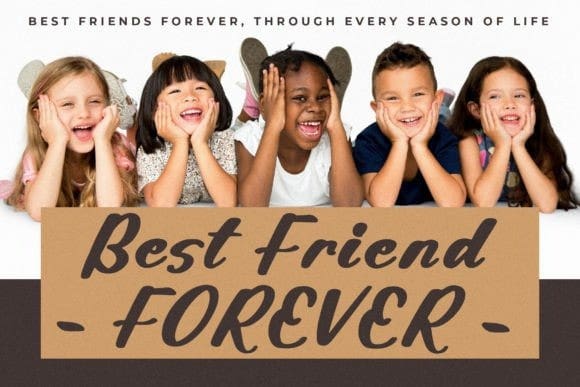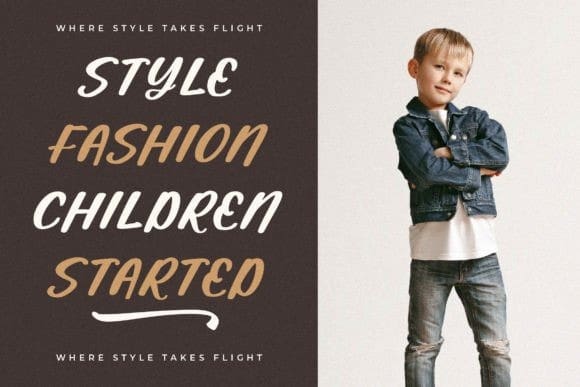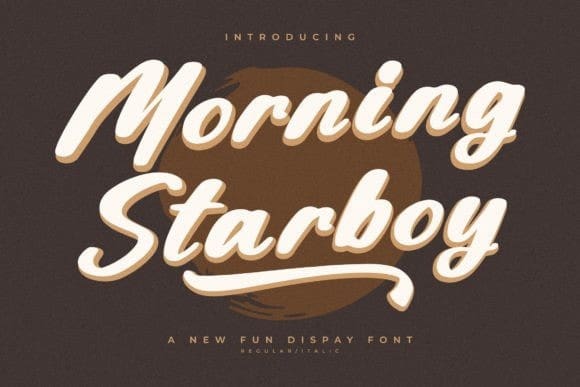
Morning Starboy Font
Morning Starboy Font is an exquisite handwritten font, masterfully designed to become a true favorite. It maintains its classy calligraphic influences while feeling contemporary and fresh. Fall in love with it and bring your projects to the highest levels!